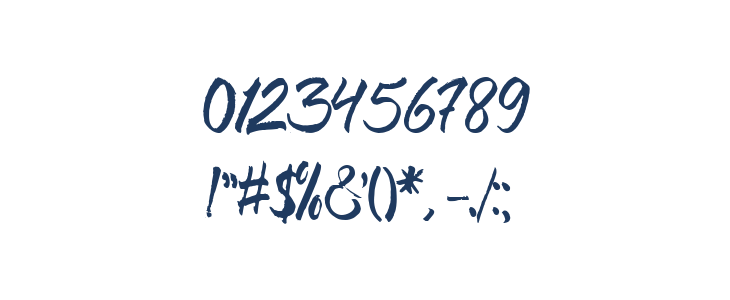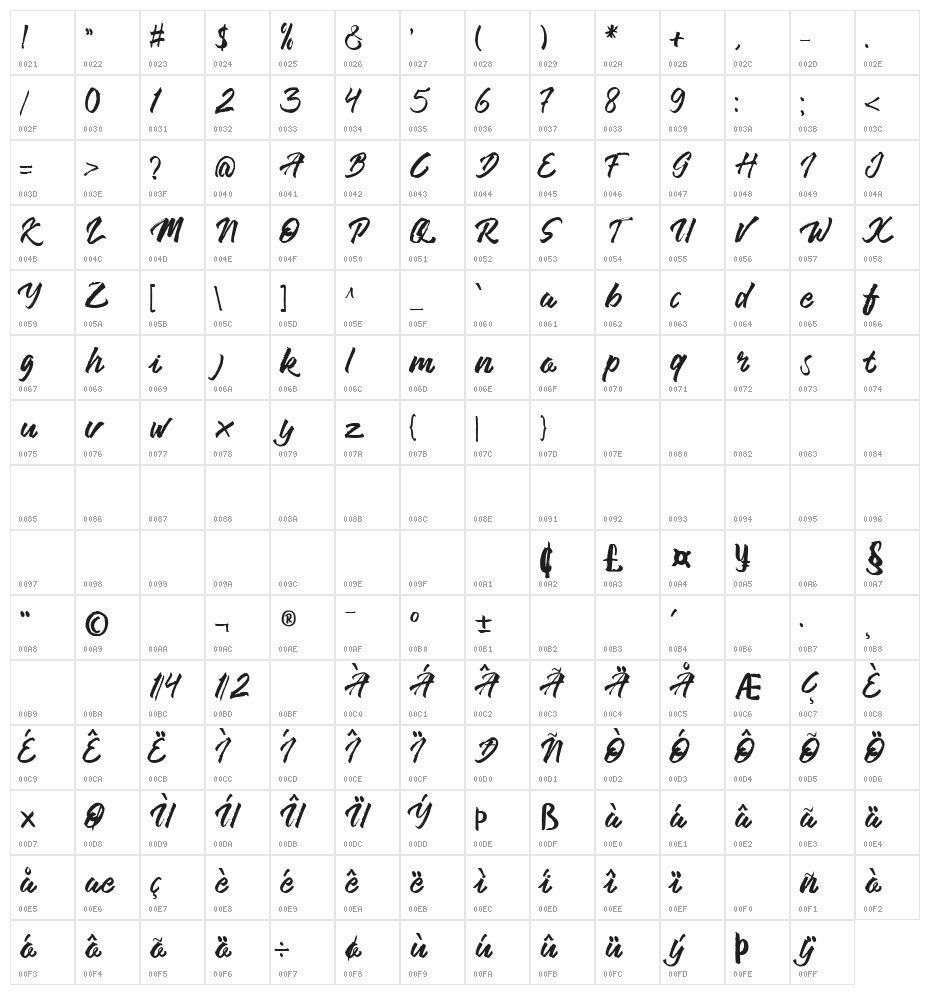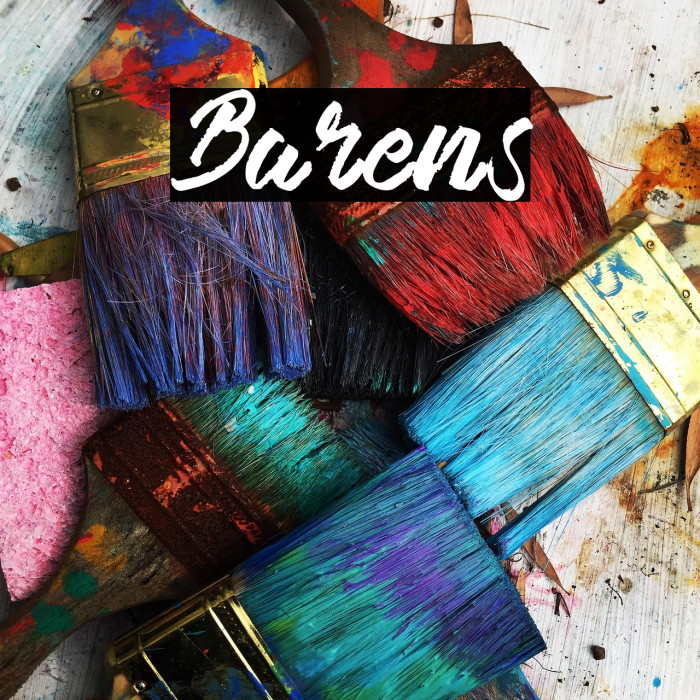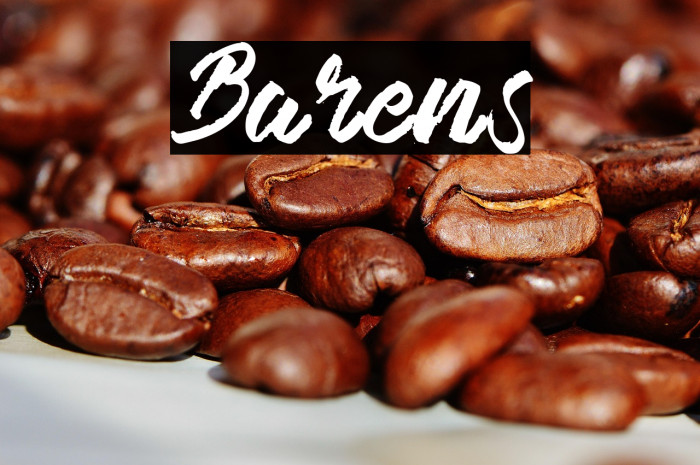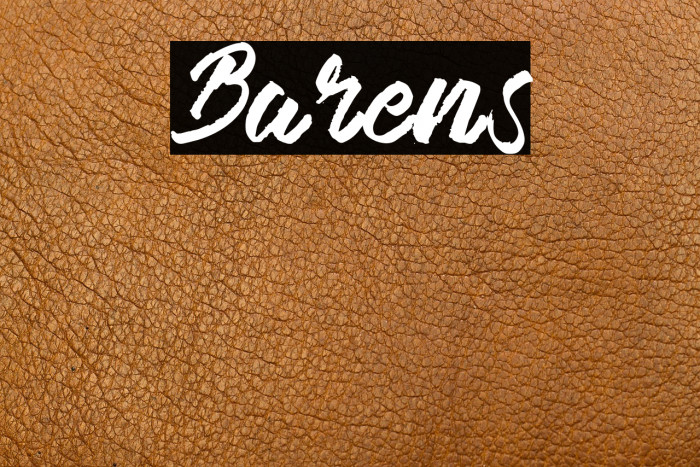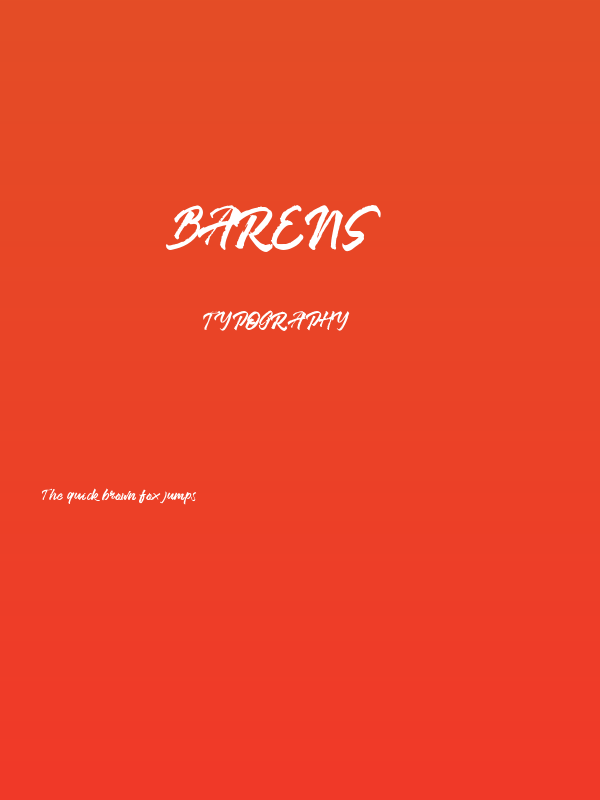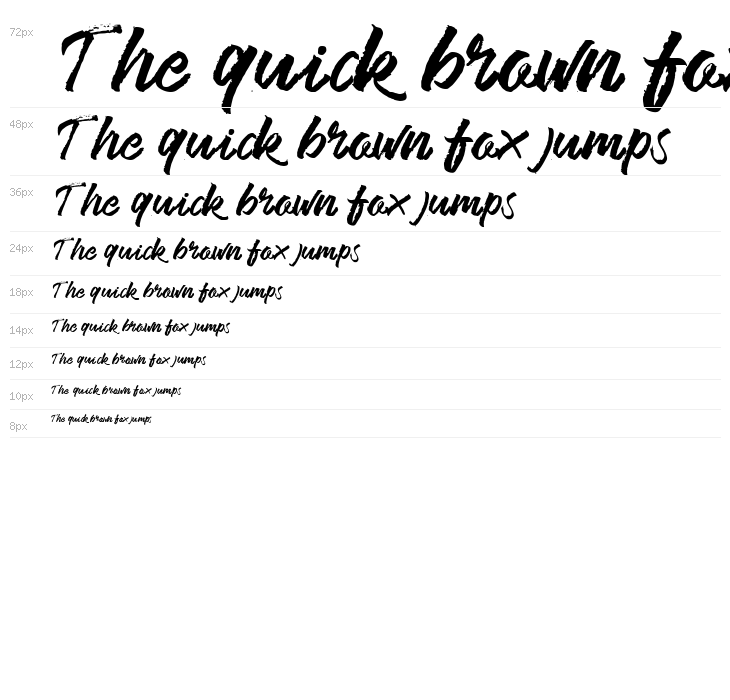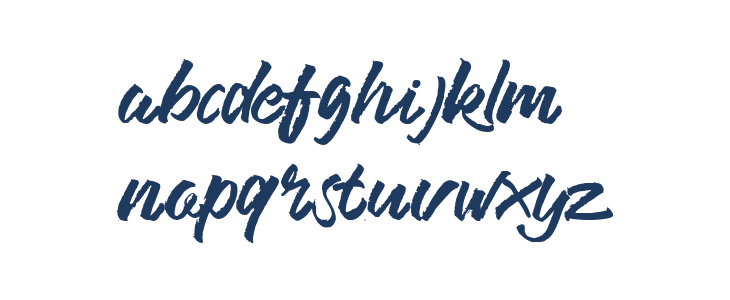
Barens Font
Barens Description
This font features a bold and expressive handwritten style, characterized by its dynamic brush strokes and fluid motion. The letters are crafted with a sense of spontaneity, giving off an energetic and artistic vibe. The uppercase characters are slightly larger, with a strong presence, while the lowercase letters maintain a consistent flow. Numbers and special characters are equally expressive, maintaining the overall aesthetic. The font's organic feel is enhanced by its irregular edges and varying stroke widths, making it ideal for creative and informal designs.
| Proposed Projects | Ideal for branding, invitations, posters, and artistic projects where a personal touch is desired. |